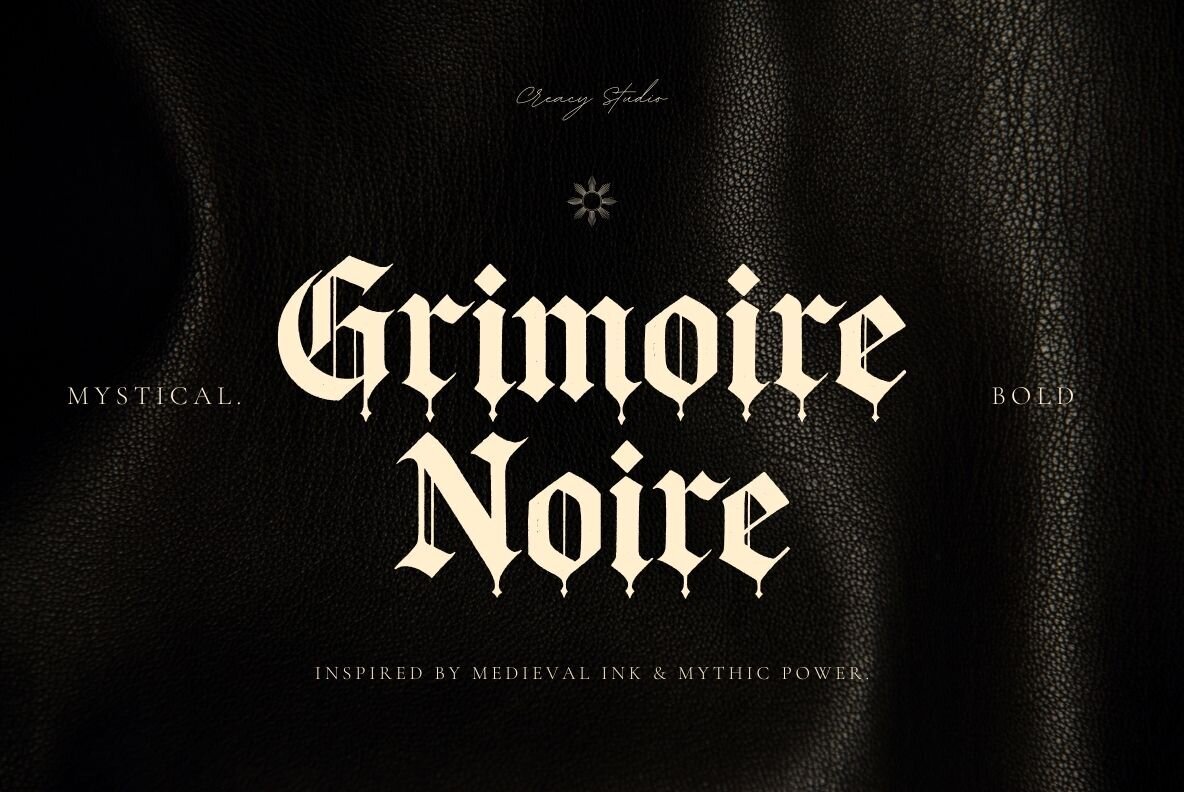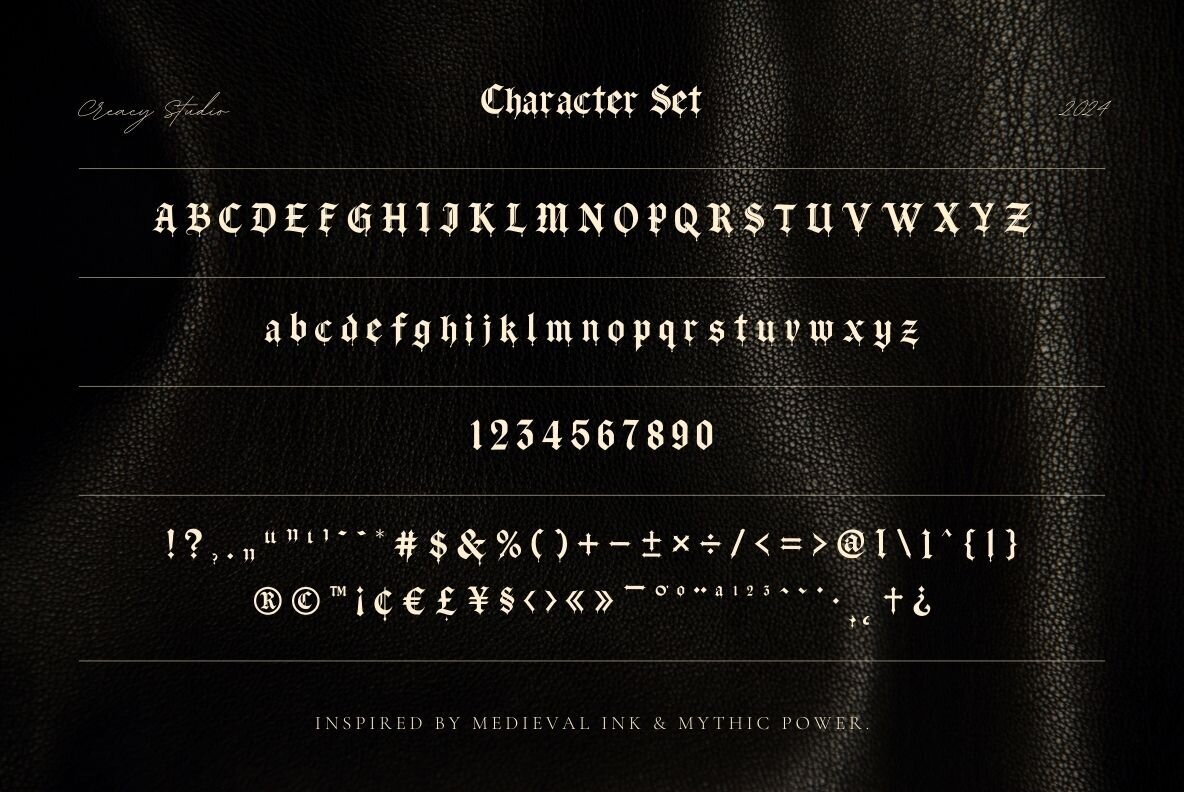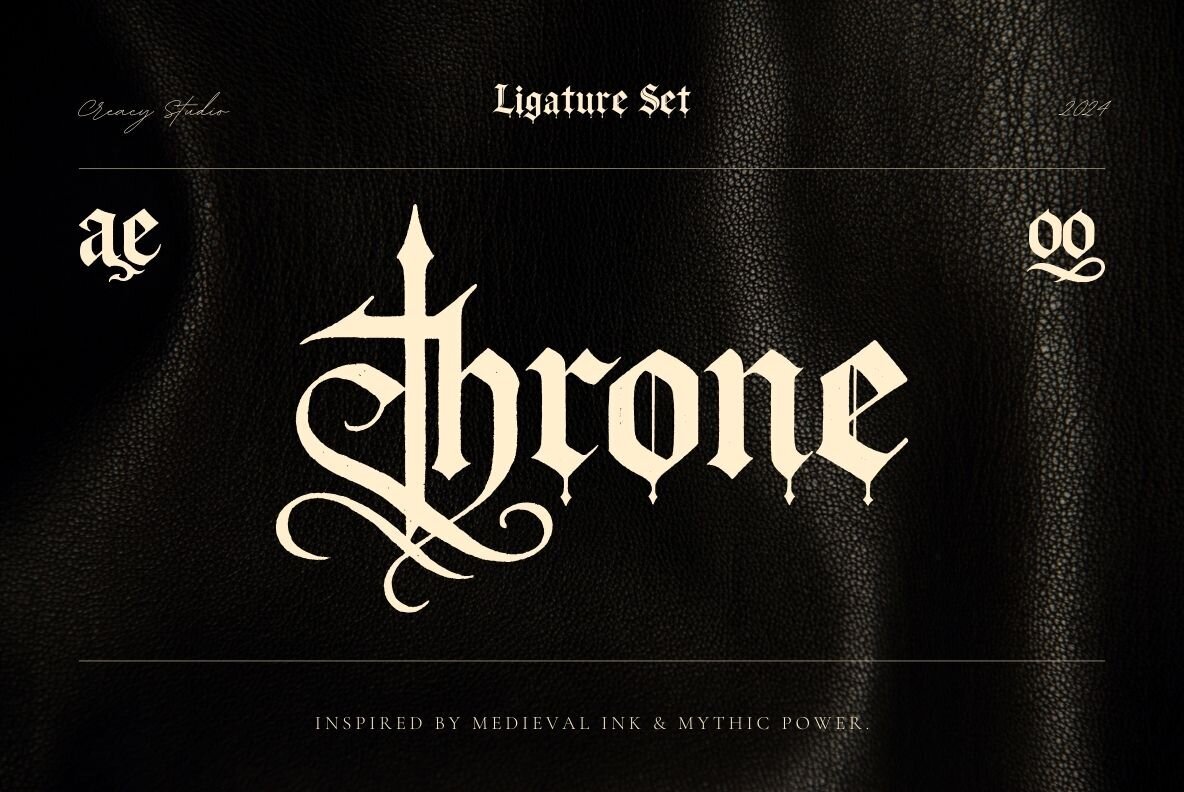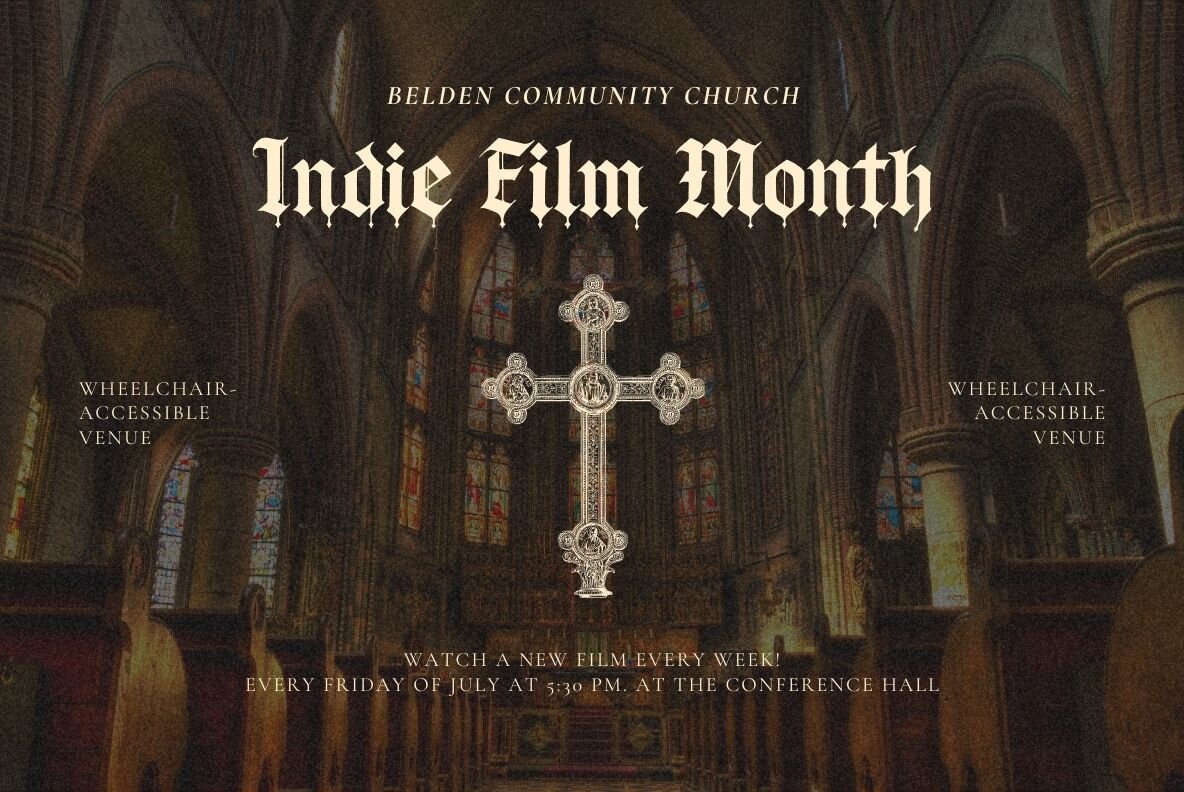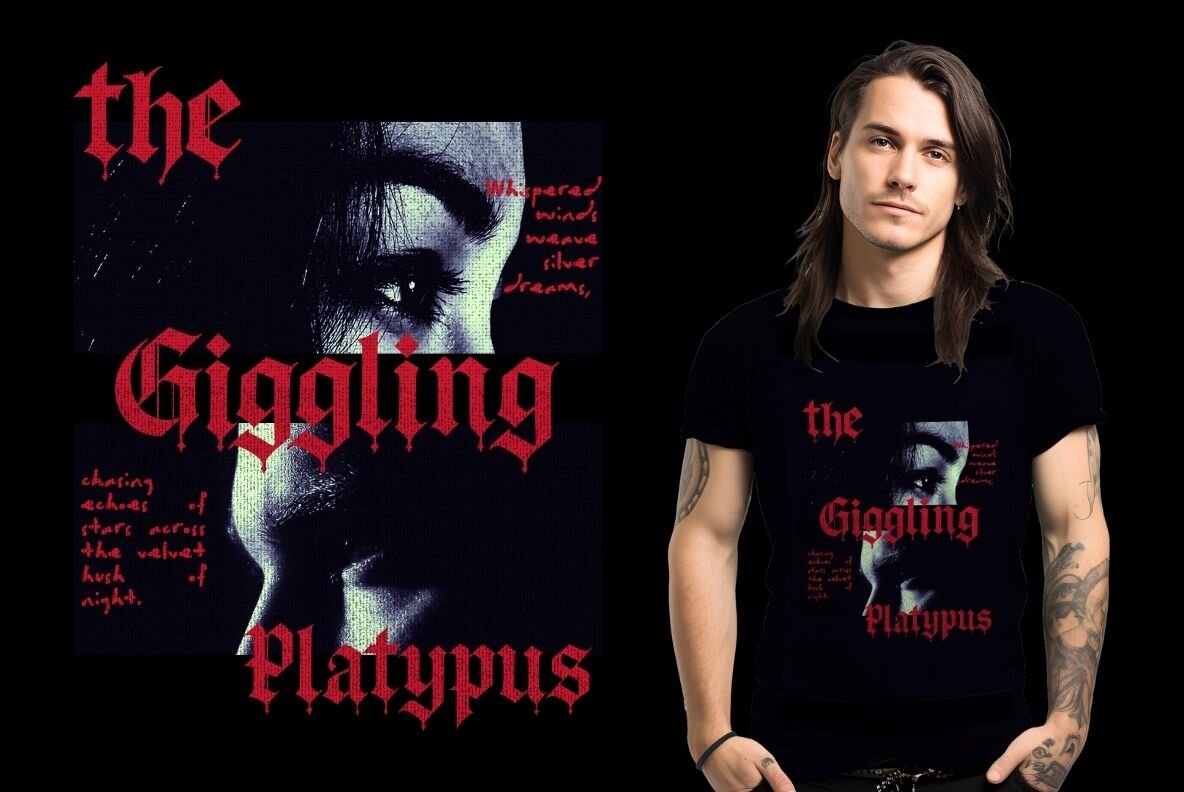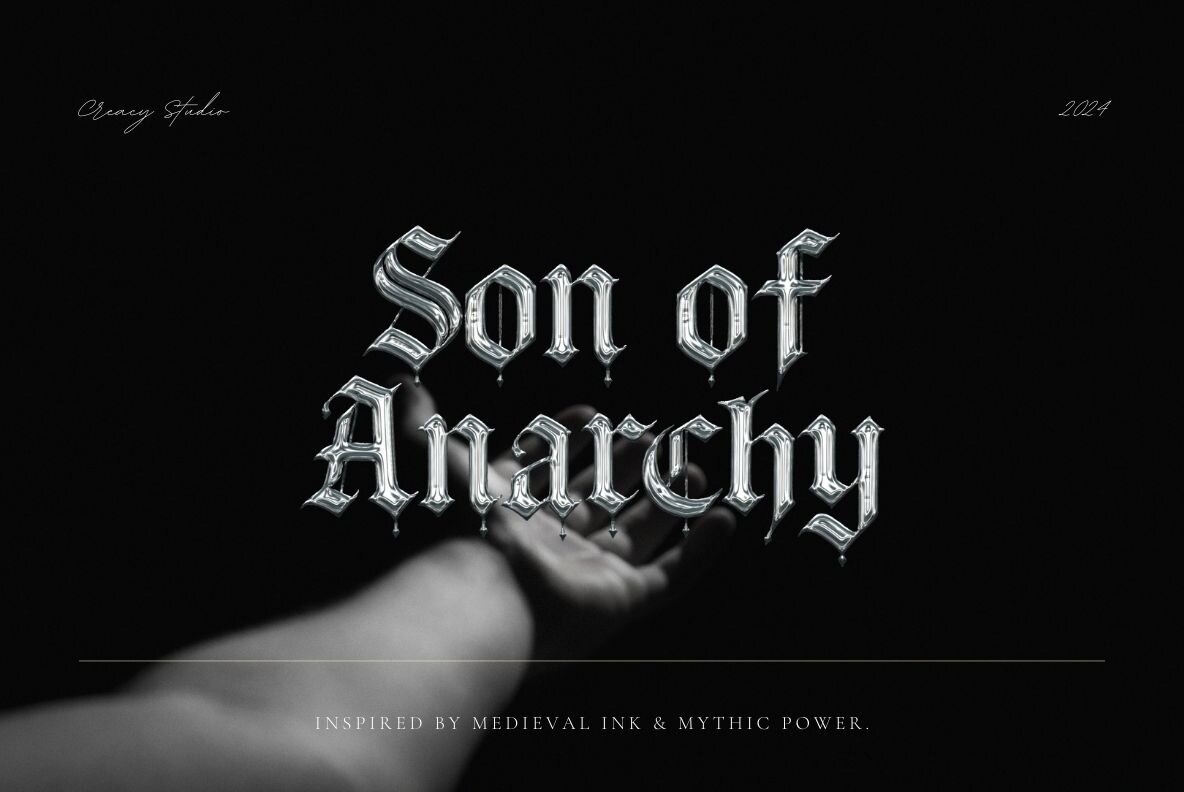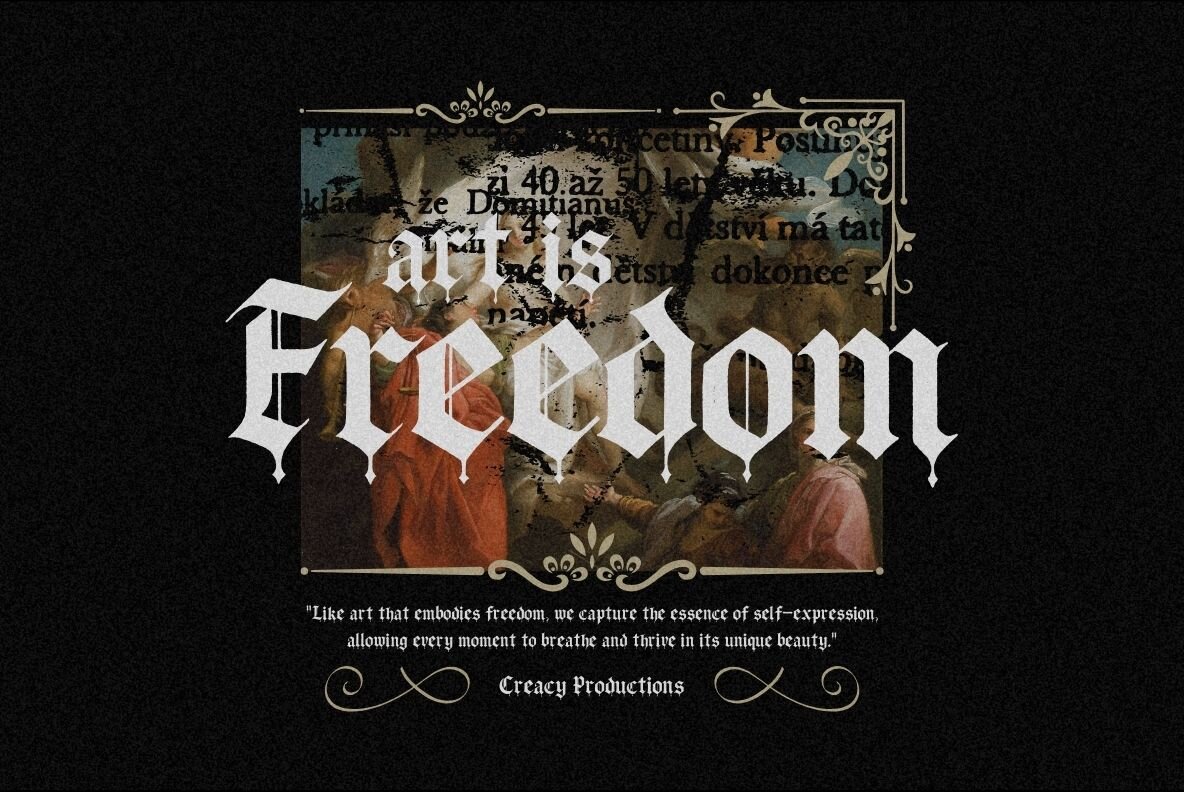
Grimoire Noire Font
Grimoire Noire Blackletter
Grimoire Noire is a bold typeface that conjures the mystique of medieval scripts and legendary tales. Each letterform weaves intricate details with strength and mystery, creating the perfect typeface for designs demanding an otherworldly, gothic touch. The sharp angles and dramatic flourishes offer a historical charm while ensuring modern readability. Crafted for diverse uses, Grimoire Noire is your go-to for branding, posters, book covers, and more, whenever a hint of the mystical is desired.Grimoire Noire: A Typeface of Mystical Might